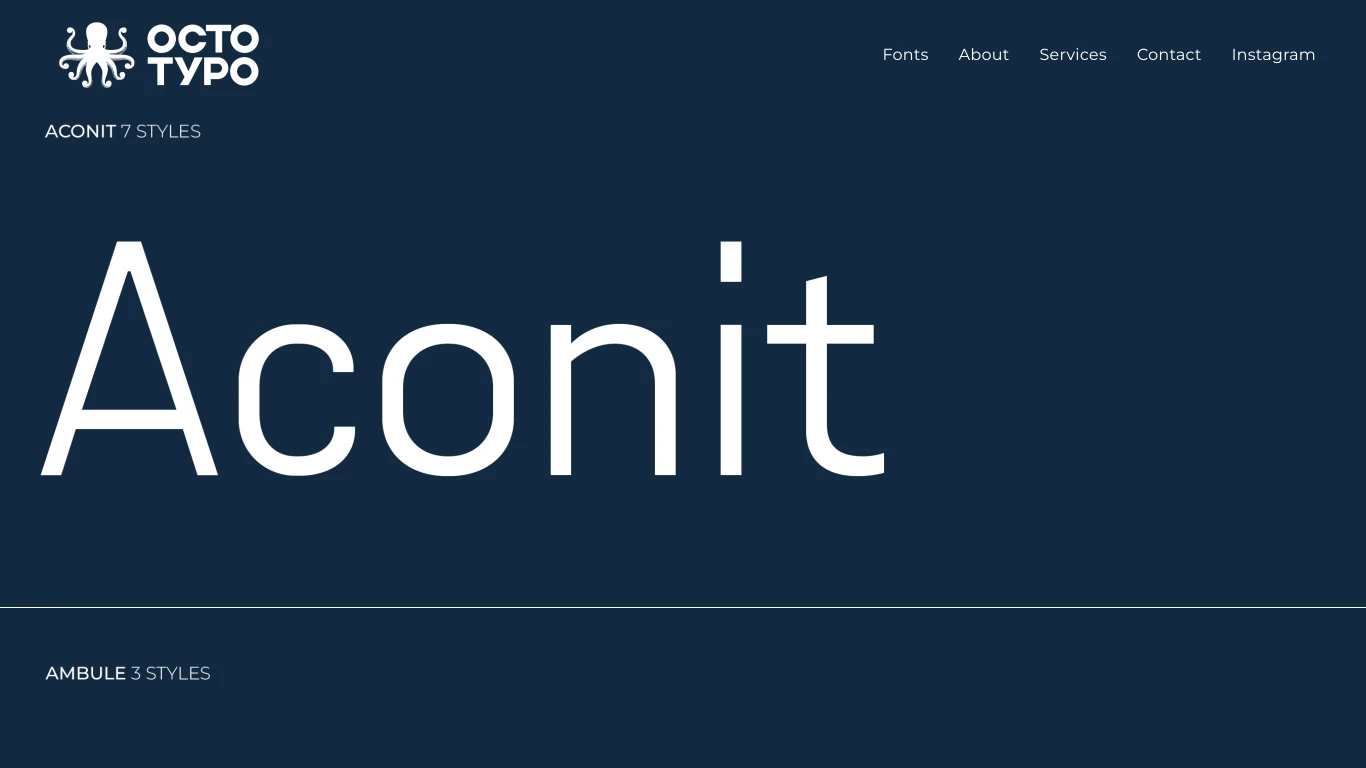
Octotypo
France
2021
Octotypo has developed several distinctive typefaces that showcase a blend of historical influence and modern design sensibilities. Among its notable works is Antipod, a ten-style sans-serif typeface released in 2020 that emphasizes clean, functional forms. Kalpa, also from 2020, is an elegant eight-style serif inspired by the dial lettering of vintage wristwatches, marrying precision with nostalgia. Another standout is Nemorosa, a refined typeface from the same year that adds versatility to the foundry's portfolio. Perhaps most conceptually striking is Curve, a typeface designed around the idea of drawing letters without ever lifting the pencil, resulting in flowing, interconnected forms that channel the spirit of the Bauhaus era with a touch of 1970s groove. Together, these works highlight Octotypo's commitment to creativity, technical mastery, and typographic storytelling.